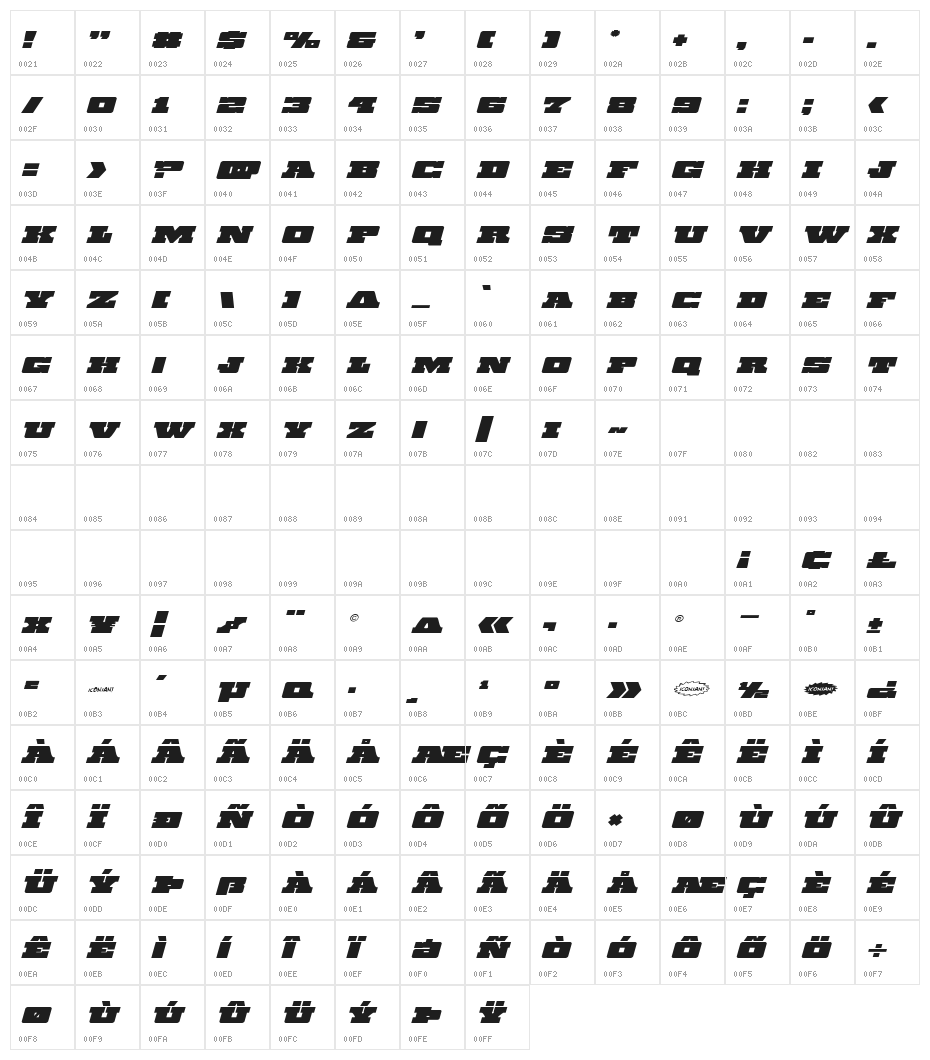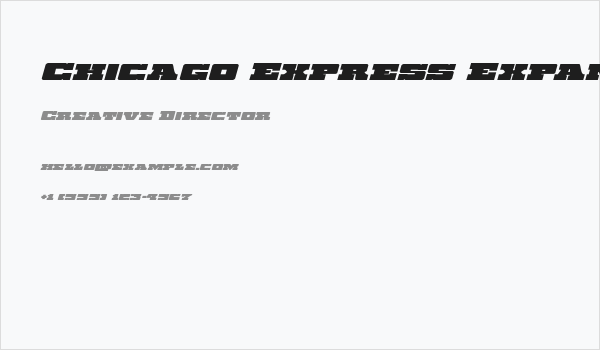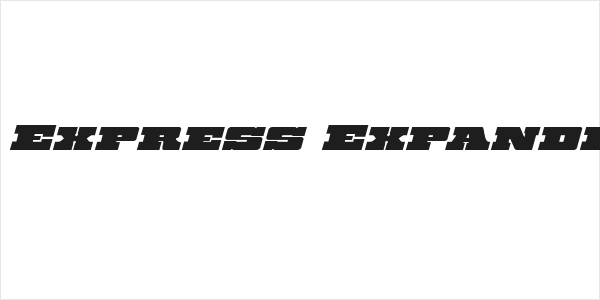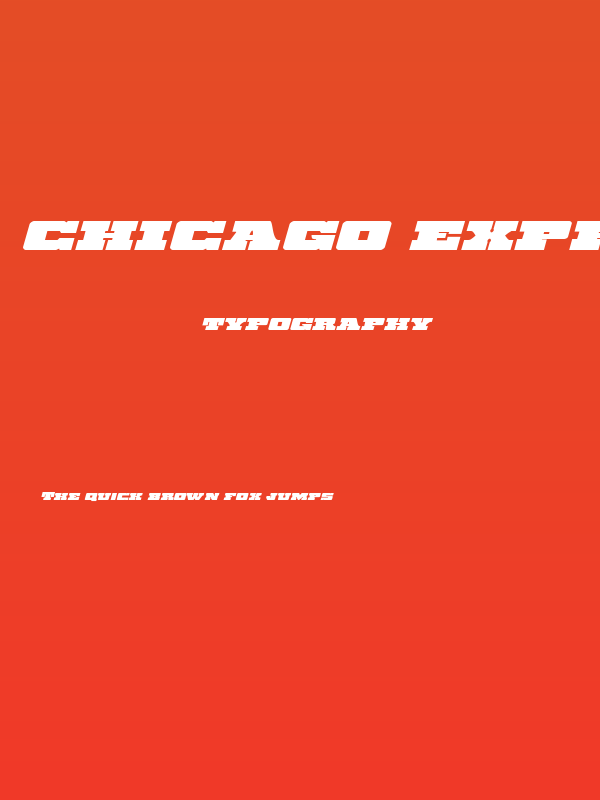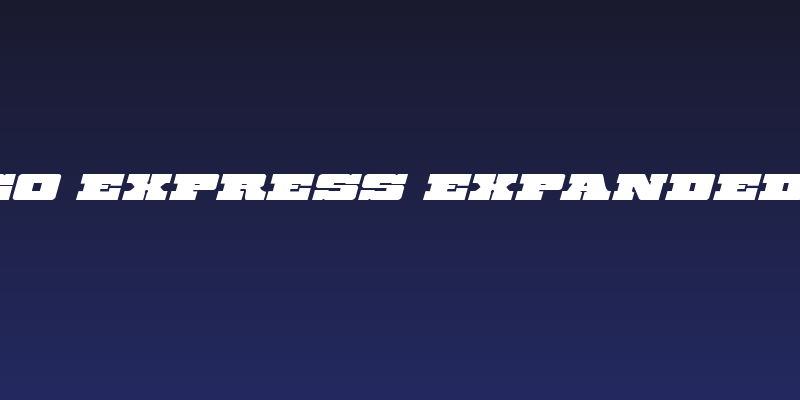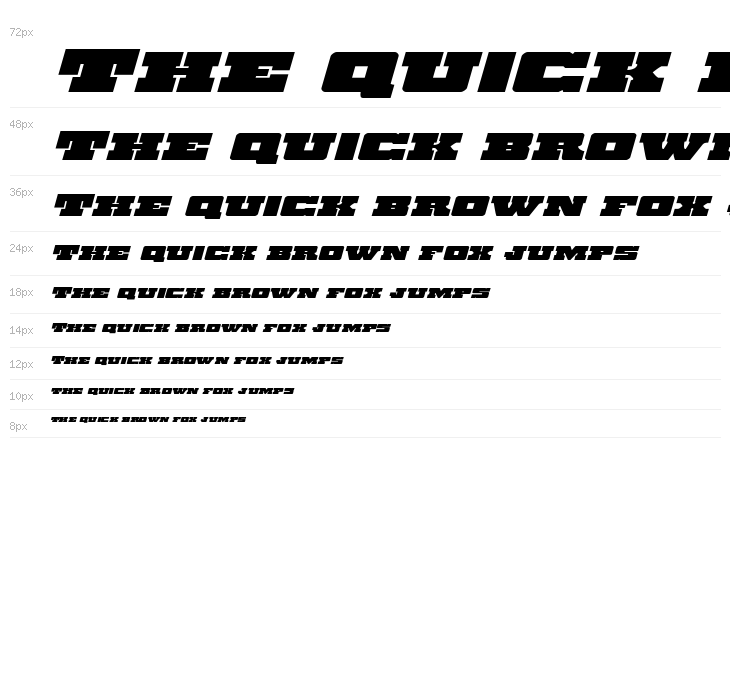
Chicago Express Expanded Italic Font
Chicago Express Expanded Italic Description
This font features a bold and impactful design with an expanded width and italicized style. The characters are heavily stylized with sharp angles and a strong presence, making it ideal for attention-grabbing headlines. The uppercase letters are particularly dominant, with a consistent stroke weight that adds to the font's robust appearance. The numbers and special characters maintain the same boldness, ensuring uniformity across all glyphs. The italic slant adds a dynamic feel, enhancing the font's overall modern and aggressive aesthetic.
| Proposed Projects | Ideal for sports branding, posters, and any project requiring a bold, impactful typeface. |